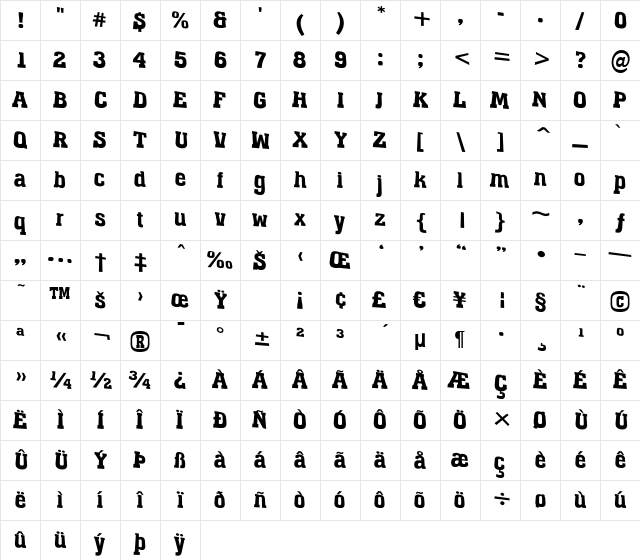
Complete a_Kena3Drot Medium glyph index. Displaying only characters natively supported by a_Kena3Drot Medium font.
a_Kena3Drot is a composed and adaptable typeface that performs quietly and consistently across a wide range of design contexts.